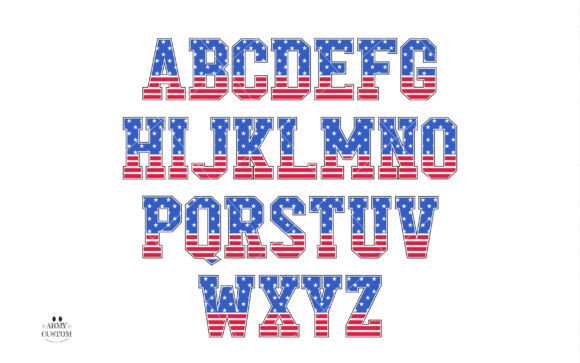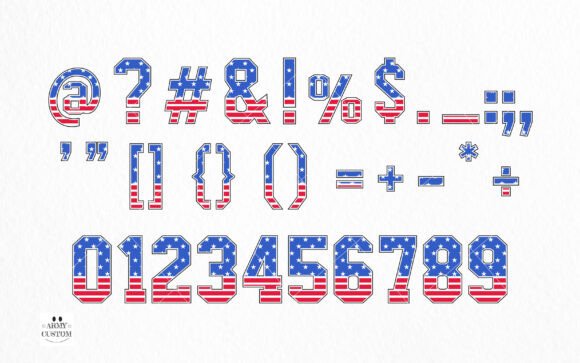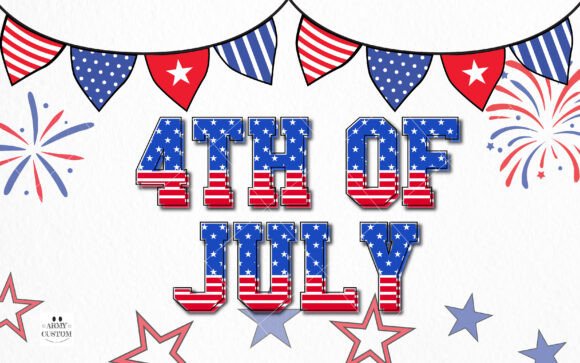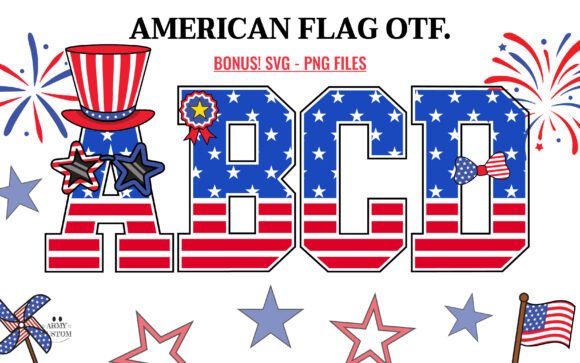
Introducing the American Flag Font: A Patriotic Celebration in Typography
Immerse yourself in the spirit of patriotic celebrations with the American Flag Font. True to its name, this font captures the essence of Memorial Day Americana in every curve and line. Uniquely designed and inspired by the heart of the United States, it embodies the charm and spirit of American aesthetics. This is not just a font; it’s a tribute to the Land of the Free, brought to life through typography.
The Essence of American Patriotism in Font Form
The American Flag Font is more than just a collection of letters and symbols; it’s a representation of American pride and patriotism. Its design is deeply rooted in the country’s rich history and cultural heritage, making it a perfect addition to any creative project that aims to evoke a sense of national pride. Whether you’re working on a design for Memorial Day, Independence Day, or any other patriotic-themed project, this font is sure to infuse an unmatched sense of patriotism into your work.
Unique Design and Versatility
One of the standout features of the American Flag Font is its unique design. Inspired by the iconic American flag, this font brings to life the stars and stripes in a way that’s both elegant and eye-catching. The font’s versatility is another one of its strong suits. Available in both black and color versions, it can be used across a variety of platforms and projects. The black version of this font is compatible with Cricut Design Space and other cutting machines, making it a great choice for crafters and makers. On the other hand, the color version, with its vibrant red, white, and blue hues, is perfect for digital designs and is compatible with certain design programs including PhotoShop, Illustrator, Silhouette, and Inkscape.
Adding Patriotism to Your Creative Projects
Whether you’re a designer looking to add a touch of patriotism to your client’s projects or a crafter working on DIY patriotic decorations, the American Flag Font is the perfect tool. Its unique design and versatility make it suitable for a wide range of applications, from:
- Memorial Day and Independence Day decorations
- Patriotic-themed invitations and greeting cards
- Custom t-shirts and hoodies
- And much more
With the American Flag Font, you can create stunning designs that capture the essence of American patriotism.
The American Flag Font is a beautiful tribute to the spirit of America, encapsulated in a unique and versatile typography. Its design, inspired by the heart of the United States, is sure to bring an unmatched sense of patriotism to your creative projects. By understanding its features and technical compatibility, designers and crafters can make the most of this font, adding a touch of American pride to their work. So, why settle for ordinary fonts when you can infuse your projects with the essence of American patriotism? Choose the American Flag Font for your next creative endeavor and let the spirit of the Land of the Free shine through.